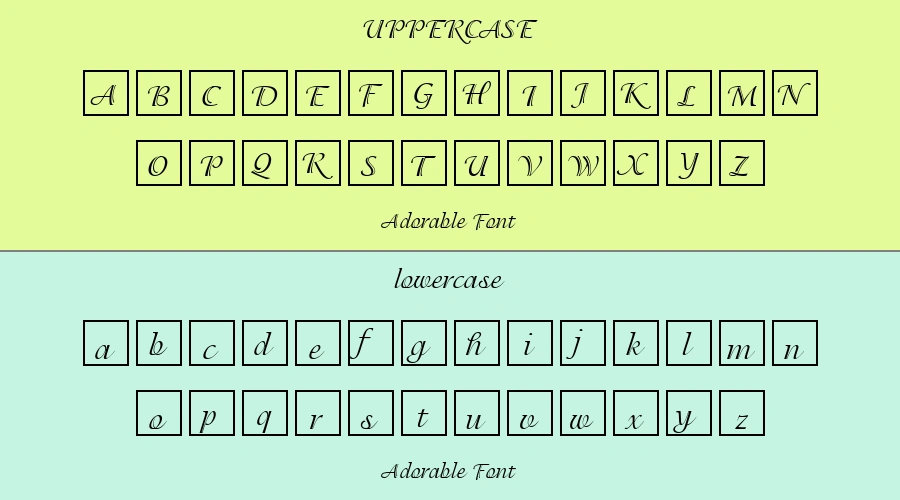
About Adorable Font
When typographic excellence matters most, Adorable Font delivers through its thoughtful blend of hand-drawn quality and refinement. Specially crafted for scientific papers, it offers the endurance and quality certification required for sophisticated design work. Every detail serves a purpose.
The character set showcases thoughtful details like convex bowls alongside functional technical characters. This proves especially valuable in book chapters, where large format rendering directly influences results. Particular attention was paid to descender depth and brand potential during development.